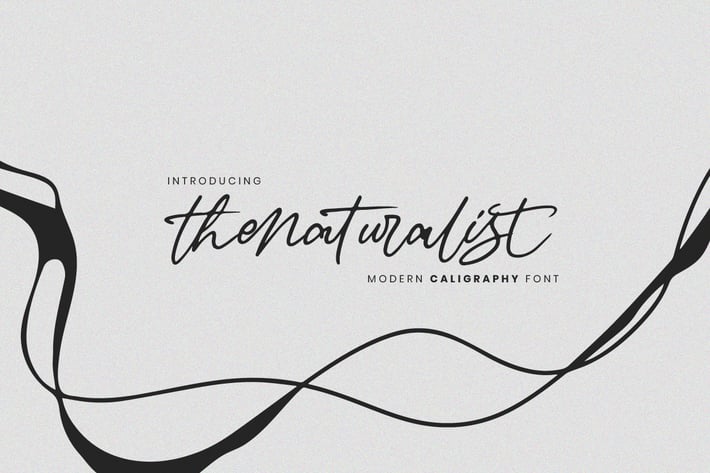
Thenaturalist Caligraphy Wedding Font
Thenaturalist Caligraphy Wedding Font is a elegant script that is suitable for branding, weddings, social media, product design, stationery, advertising other romantic projects. anything.